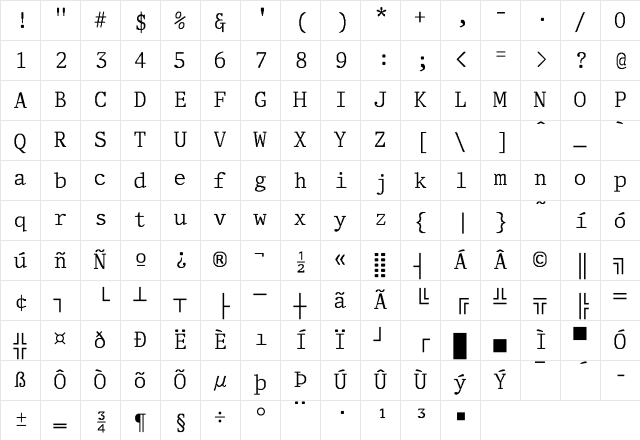
Adjutant-Normal Regular
Adjutant-Normal Family
Complete Adjutant-Normal Regular glyph index. Displaying only characters natively supported by Adjutant-Normal Regular font.
Design Context for Adjutant-Normal
Adjutant-Normal is a composed and adaptable typeface that performs quietly and consistently across a wide range of design contexts.